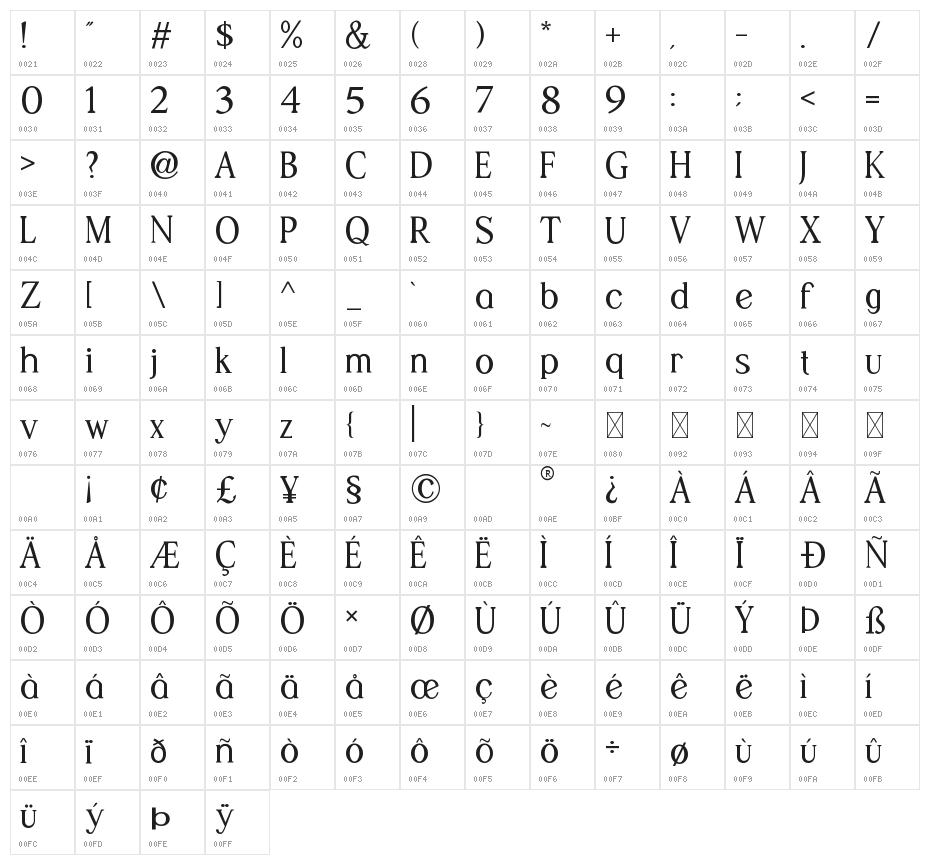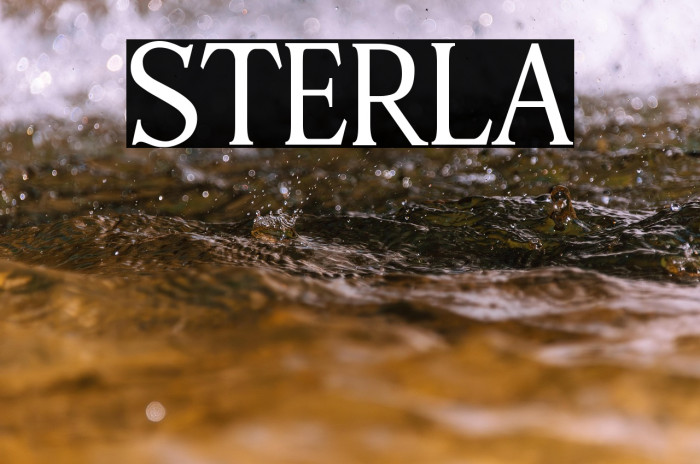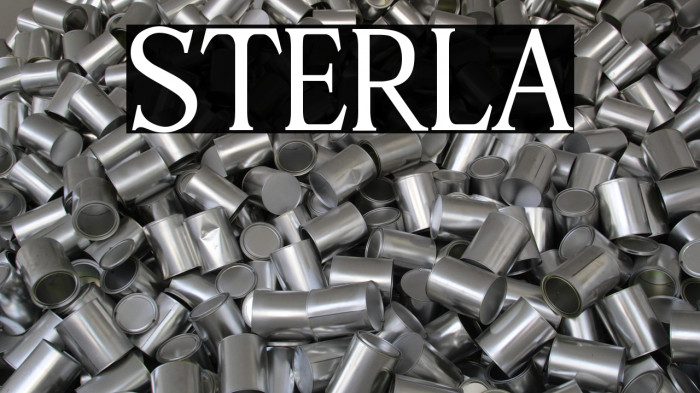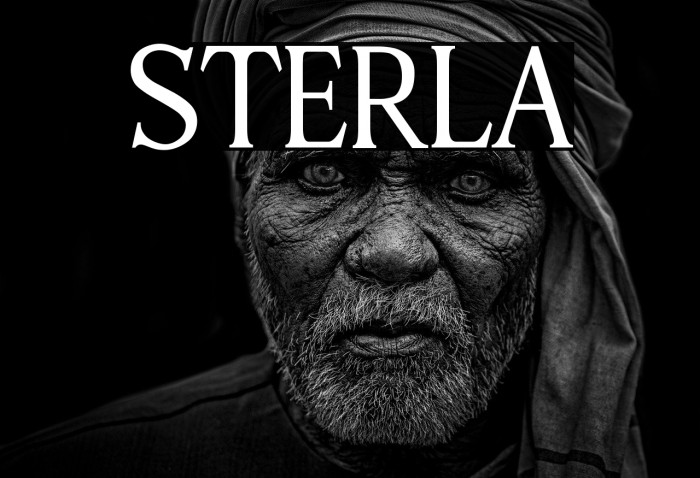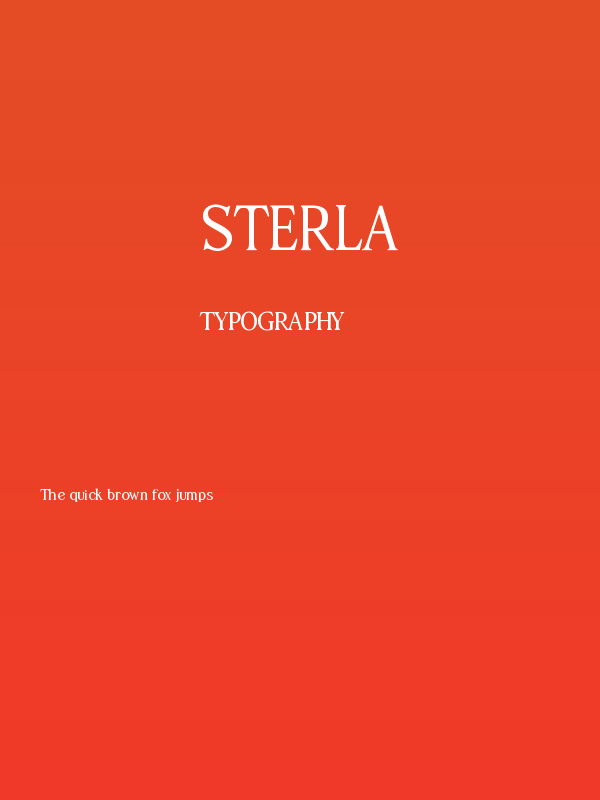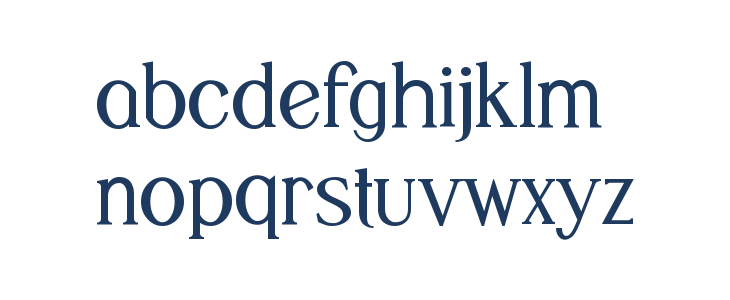
STERLA Font
STERLA Description
This font features a classic serif style with elegant and refined strokes. The uppercase letters are tall and commanding, while the lowercase letters maintain a balanced and harmonious appearance. The numerals are clear and distinct, making them easily readable. Special characters are well-integrated, adding versatility to the font's usage. The overall design is sophisticated, with a timeless appeal that suits both traditional and modern contexts.
| Overall Style | Classic |
| Use Case | Headlines, Body text, Logos |
| Proposed Projects | Ideal for editorial design, book covers, formal invitations, and branding projects that require a touch of elegance and tradition. |